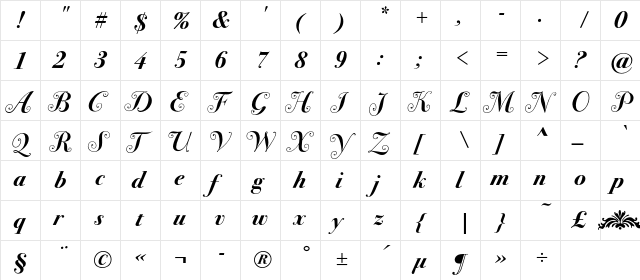
Bodoni72SwashC Bold
Design Context for Bodoni72SwashC Typeface
Bodoni72SwashC flows with the natural rhythm of handwritten lettering, making it ideal for designs that call for warmth and personal expression. Its bold stroke weight gives it real presence on the page.
Font Pairing: Combine Bodoni72SwashC with a simple geometric sans for maximum contrast — the tension between flowing curves and clean structure is a classic typographic pairing.
Pro Tip: Use Bodoni72SwashC for short runs of text — names, titles, or taglines. Extended body copy in script faces tires the eye quickly.